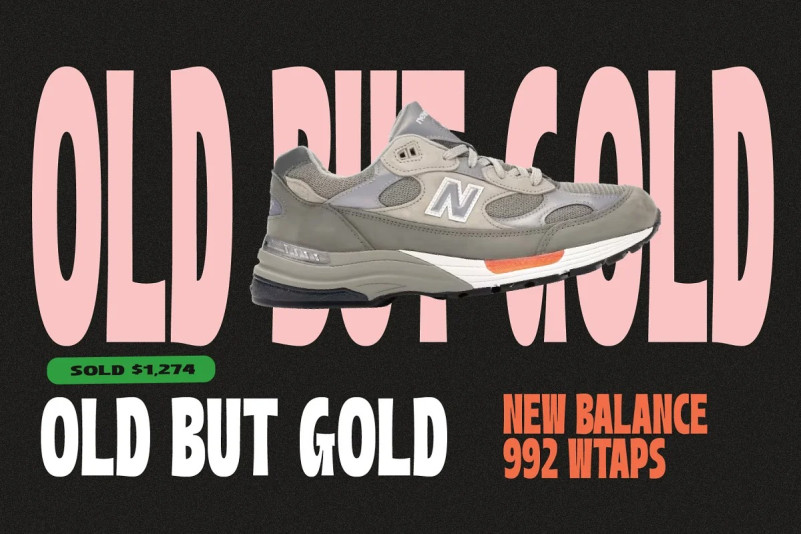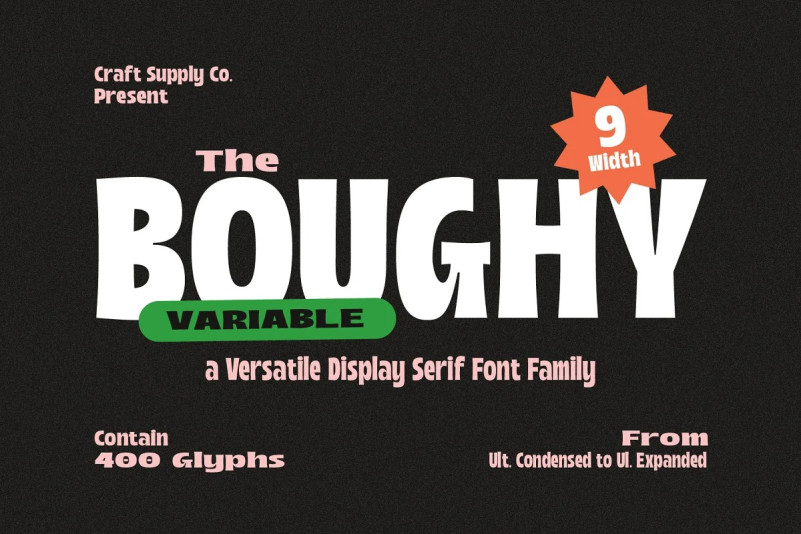
Boughy Font
Boughy Font Family is a versatile display serif font family with 9 weights from ultra condensed to extra expanded. perfect for headings, titles, branding and much more.
Boughy – Font Family contains everything you need to create stunning typography – from headline fonts to body text fonts – all in one place. Whether you’re starting out or you’ve been designing for years, Boughy has everything you need.
Boughy – Font Family also Suitable for Logo, greeting cards, quotes, posters, branding, name card, stationary, design title, blog header, art quote, typography, art, modern envelope lettering or book design, happening style like handdrawn design or watercolor design theme, craft design, any DIY project, book title, or any purpose to make your art/design project look pretty and trendy.